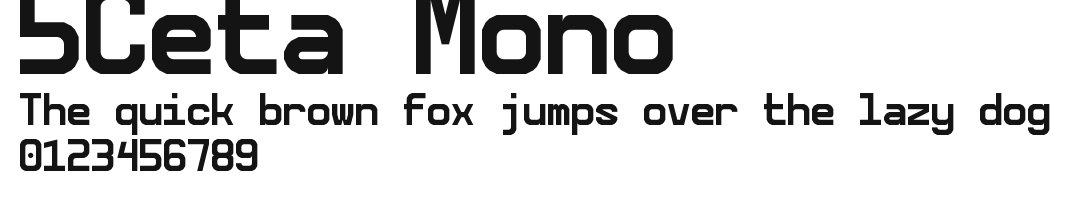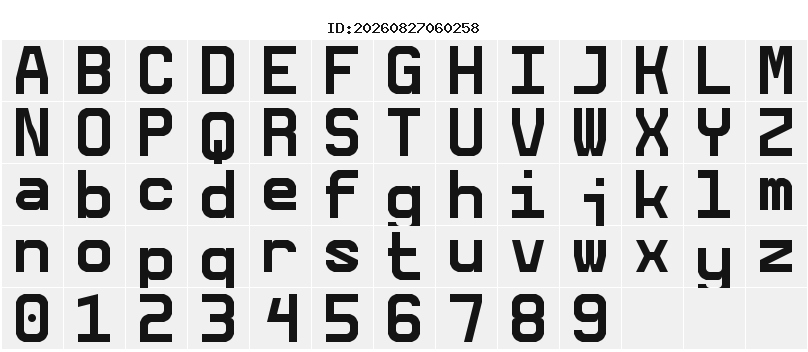
5Ceta Mono Preview
• Font Name: 5Ceta Mono
• Full Font Name: 5Ceta Mono Regular
• Designer: Noah - 10 year old typomaniac
About 5Ceta Mono.ttf
5Ceta Mono.ttf is a modern, elegant sans-serif font designed for ultimate readability and visual harmony. Perfect for branding, headlines, web design, and print materials.